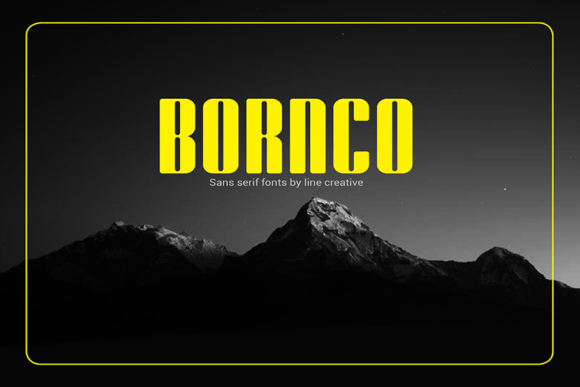
**Bornco Font: The Epitome of Strength and Charisma**
Introducing the Bornco Font, a testament to unwavering strength and enchanting charisma. Its bold, sans serif structure exudes a sense of confidence and stability, making it the ideal choice for designs demanding a firm and captivating presence.
Crafted by the renowned design studio, Line Creative, the Bornco Font embodies a harmonious union of ruggedness and elegance. Its robust and resilient character evokes a sense of authority, while its subtle curves and soft angles inject a touch of sophistication and visual intrigue.
Whether you seek to craft impactful logos, captivating headlines, or elegant body text, the Bornco Font stands as your steadfast companion. Its versatility knows no bounds, effortlessly adapting to a myriad of design aesthetics and concepts.
Embrace the Bornco Font and witness the transformative power it wields over your creations. Let its bold lines command attention, and its subtle nuances seduce the senses. Elevate your designs to new heights of sophistication and impact, leaving an enduring impression that captivates and inspires.
**Key Attributes:**
- Strong and sturdy sans serif
- Firm and charismatic feel
- Perfect for designs requiring a bold and confident aesthetic
- Versatile and adaptable to a variety of design styles